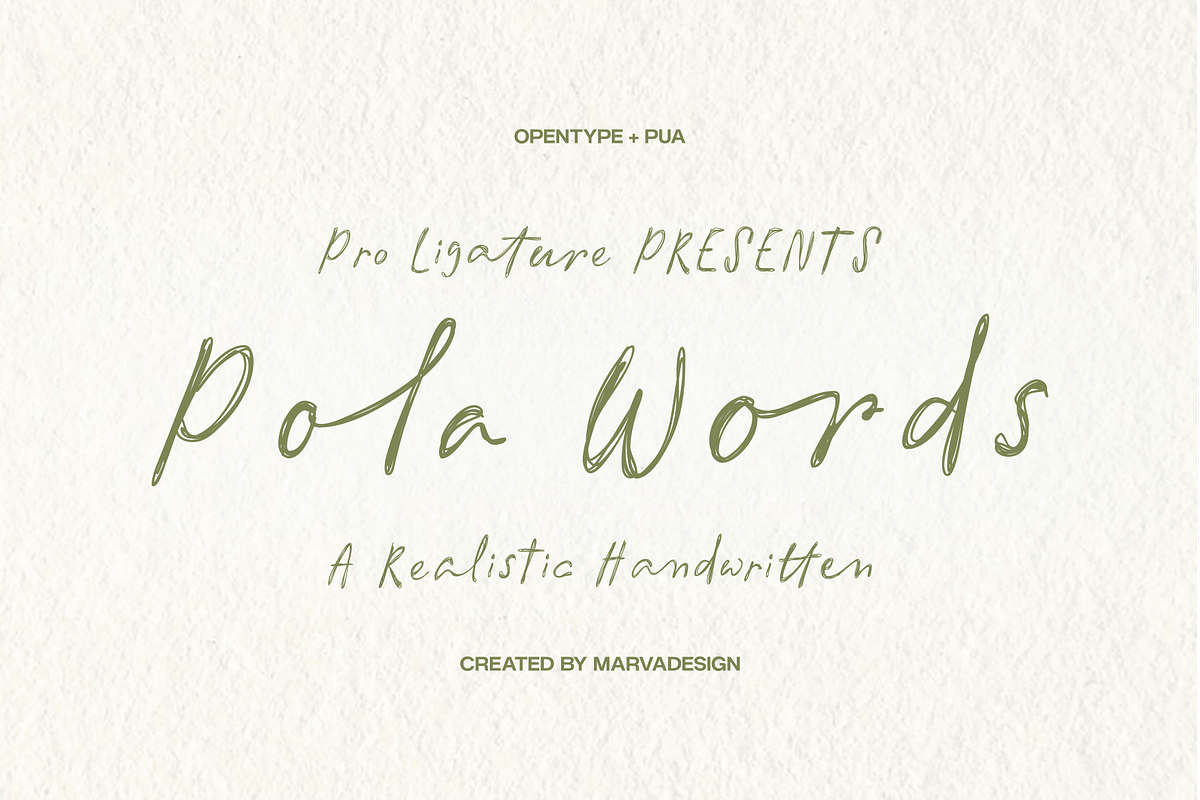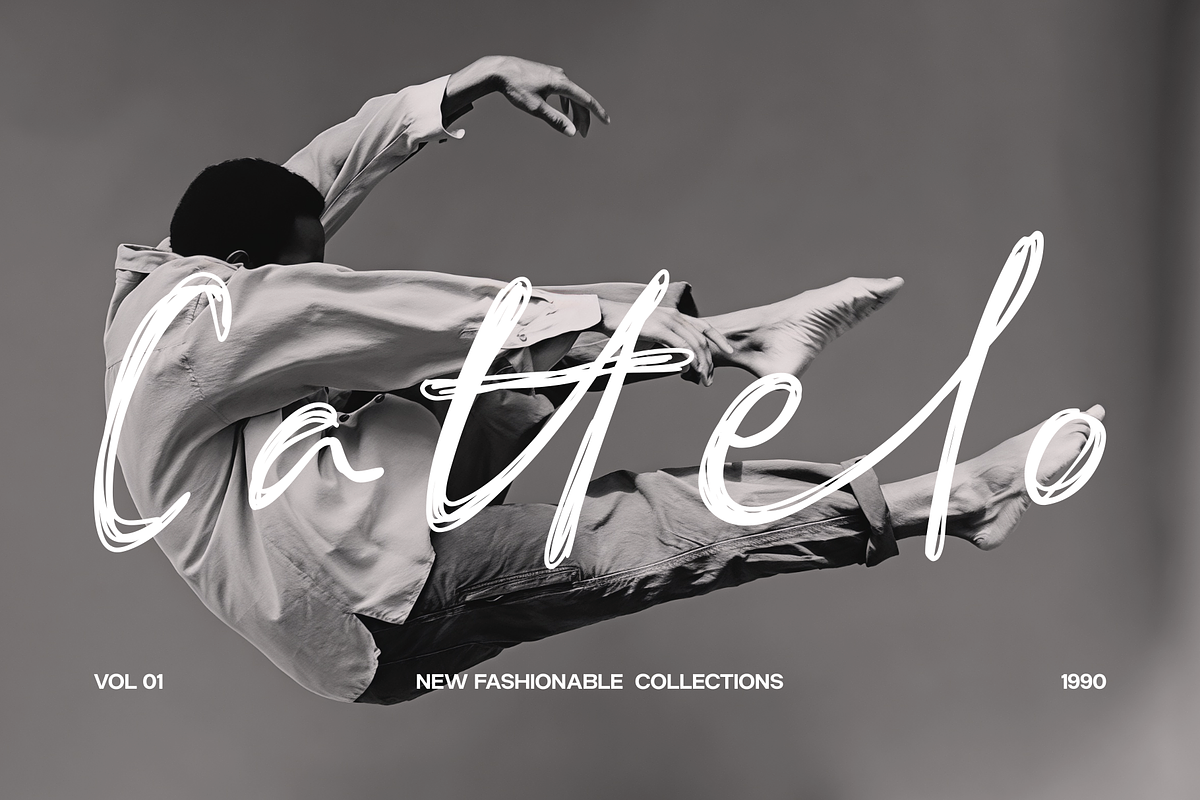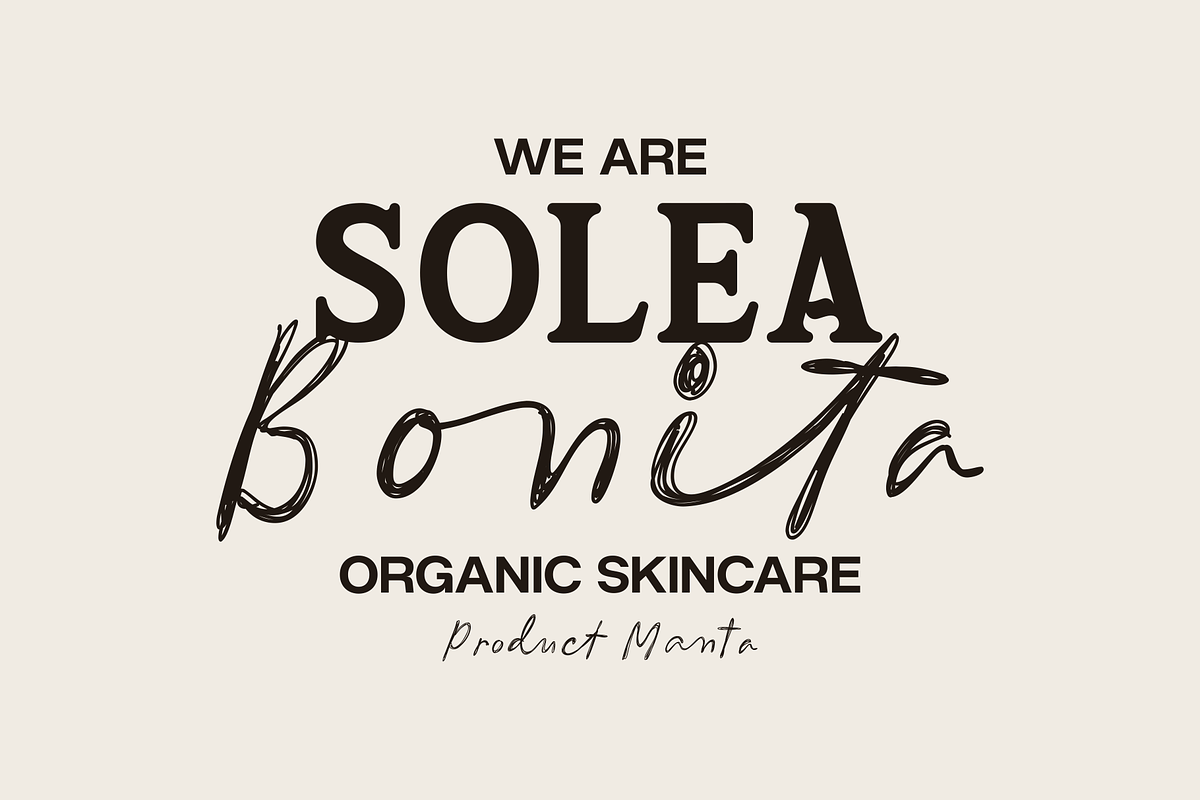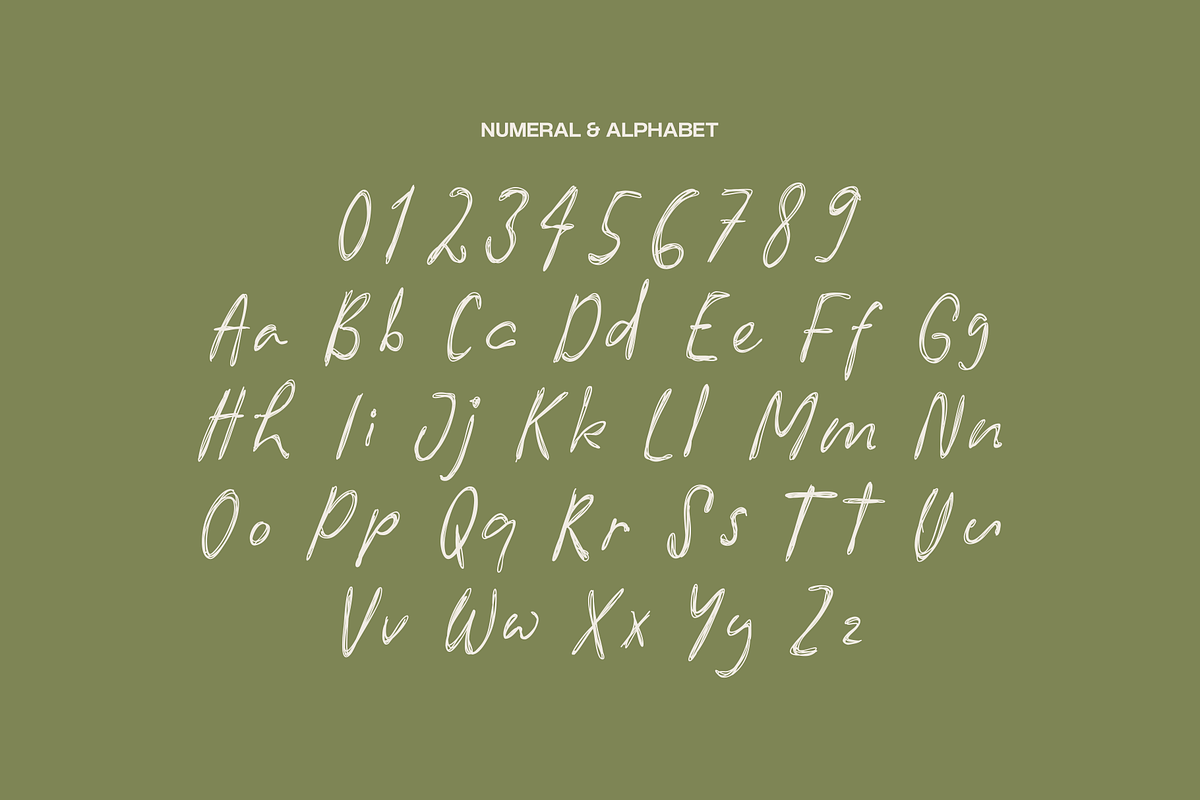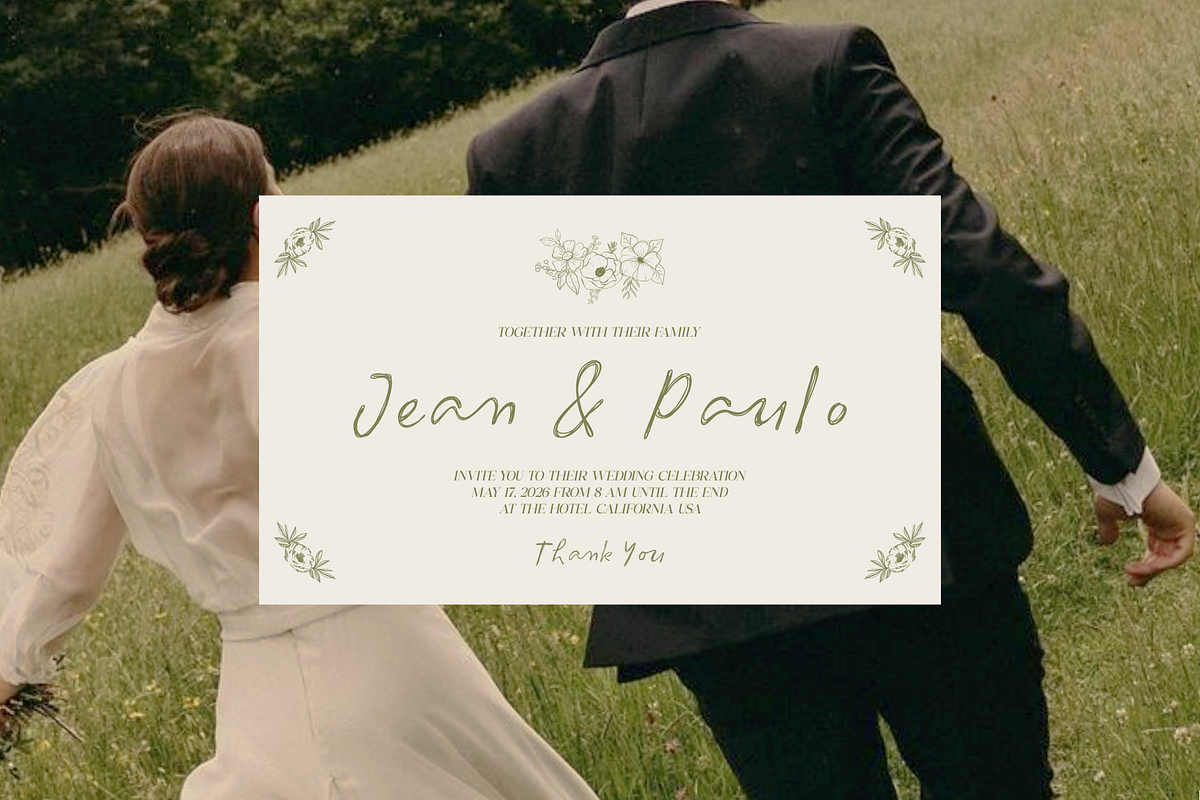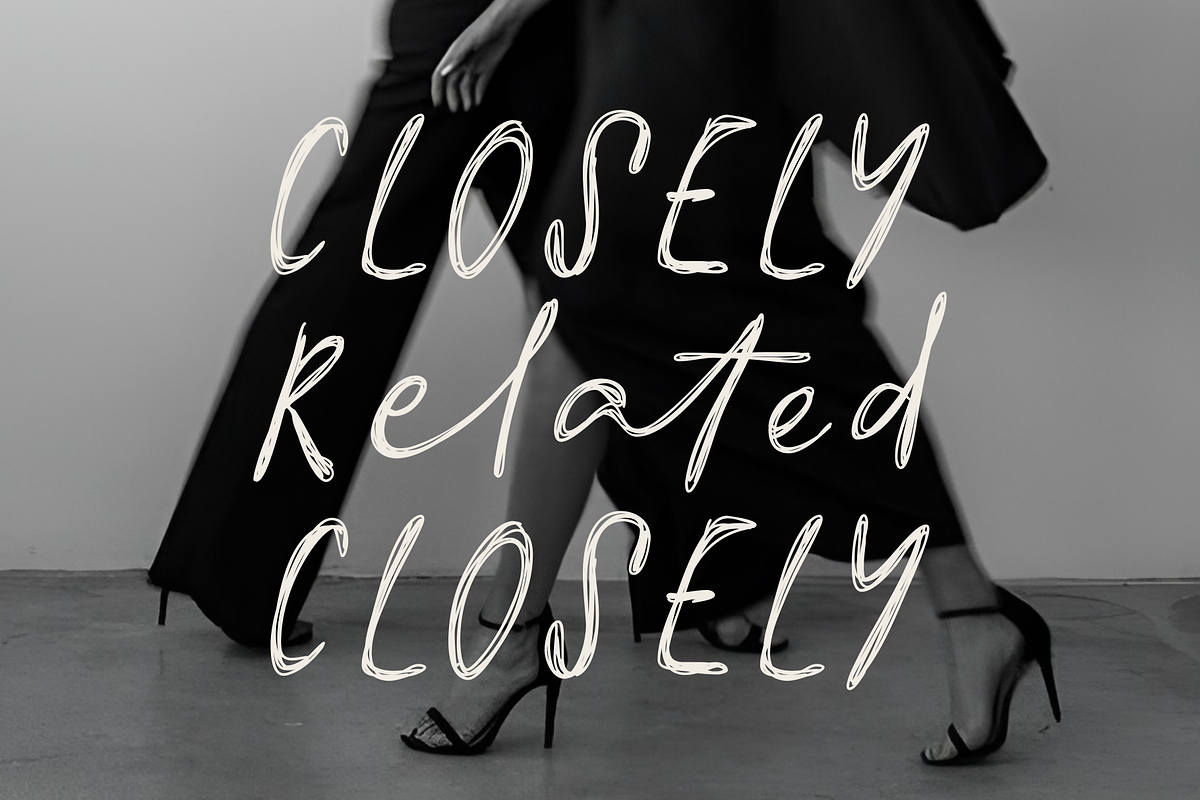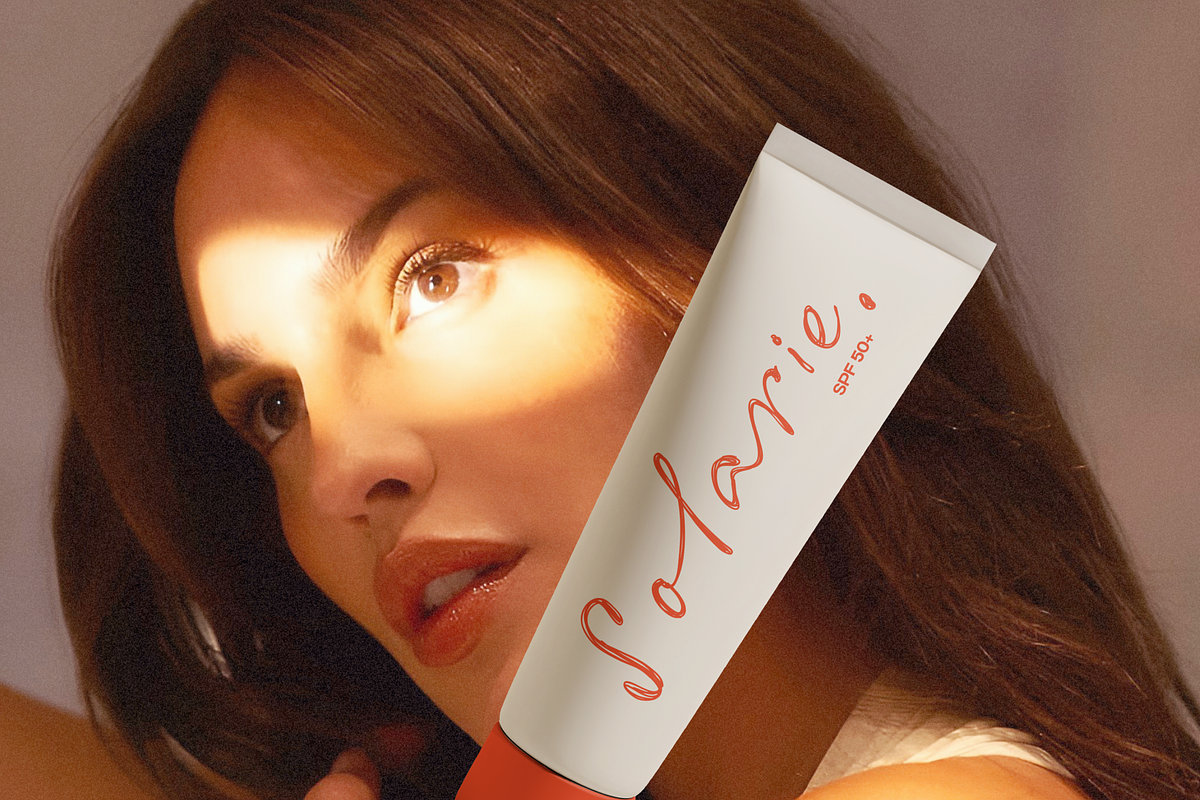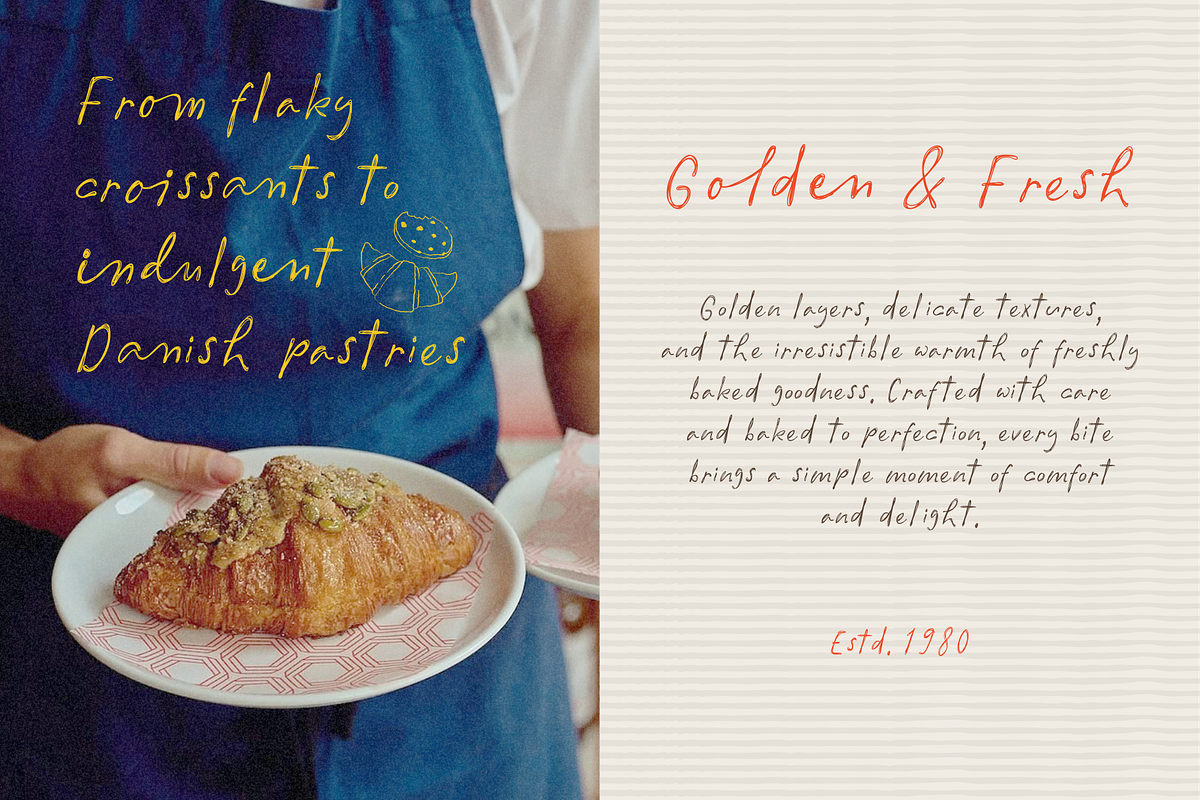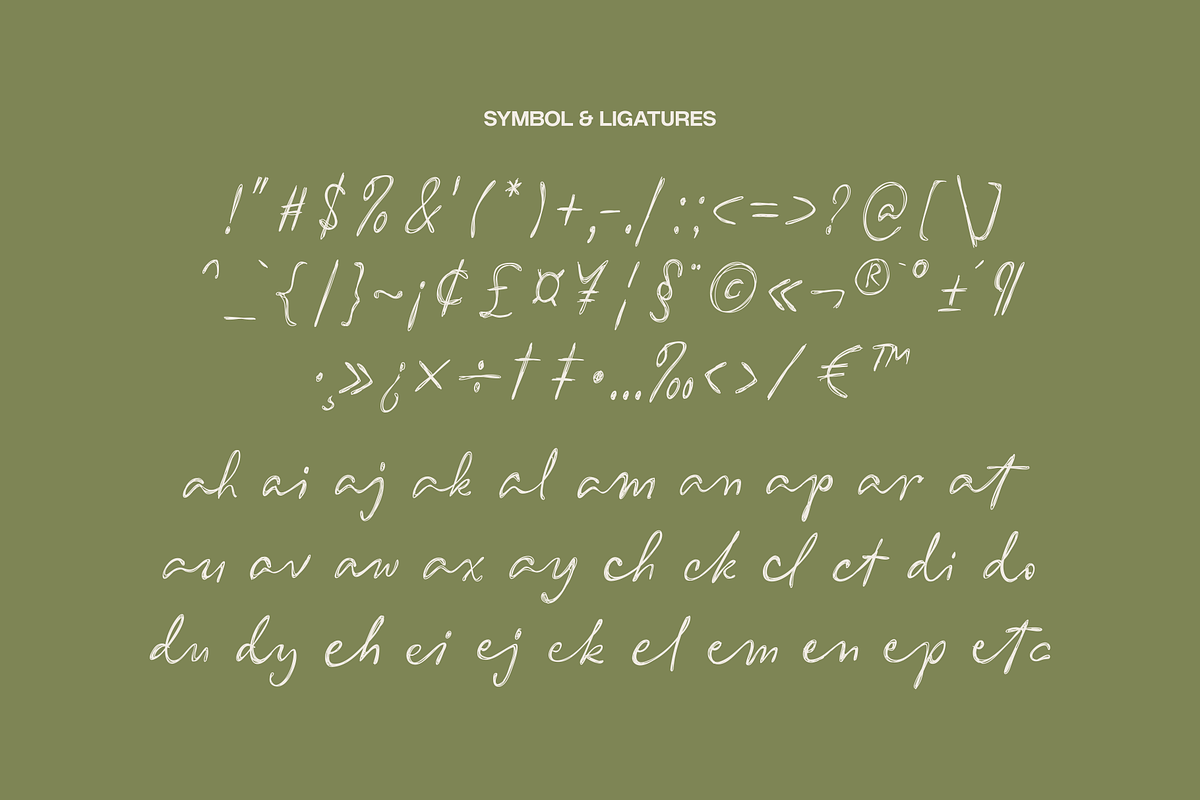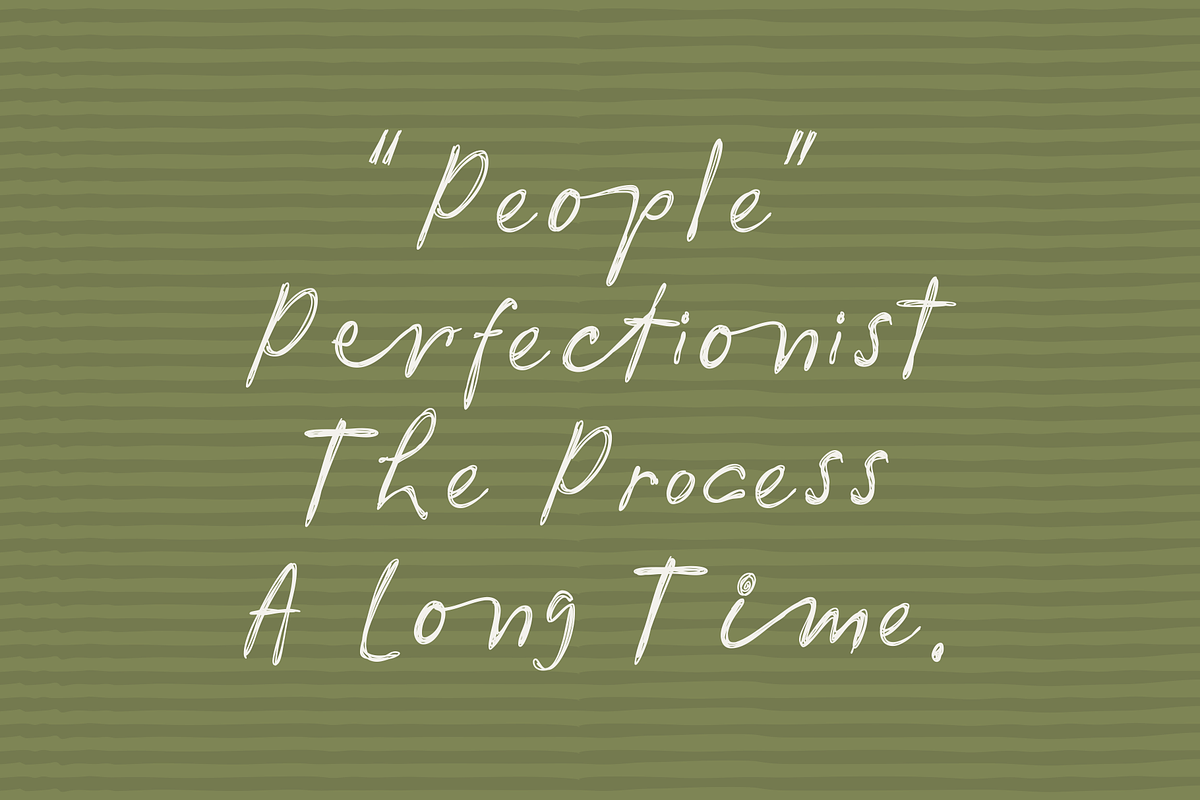
Pola Words
Pola Words is a realistic, handwritten-style typeface that blends a casual, expressive nature with an elegant, artistic touch. The letterforms are shaped by naturally flowing strokes, subtle irregularities, and sketch-like outlines, evoking the authentic feel of writing with a pen or fine-liner. Slight imperfections and overlapping stroke details lend a distinctive handmade character—feeling personal, spontaneous, and organic rather than mechanical. Fluid connections, elongated ascenders, dynamic curves, and varied proportions create a lively rhythm that imbues every word with a sense of movement and personality.
One of its most unique features is a double-stroke appearance reminiscent of hand-drawing, where certain characters feature layered fine lines that mimic the motion of a repeated pen stroke. This creates a raw yet sophisticated aesthetic, allowing the font to stand out in both minimalist and expressive compositions. It also includes a full set of uppercase and lowercase letters, numerals, punctuation, symbols, and stylistic ligatures, offering greater flexibility for creative typographic projects.